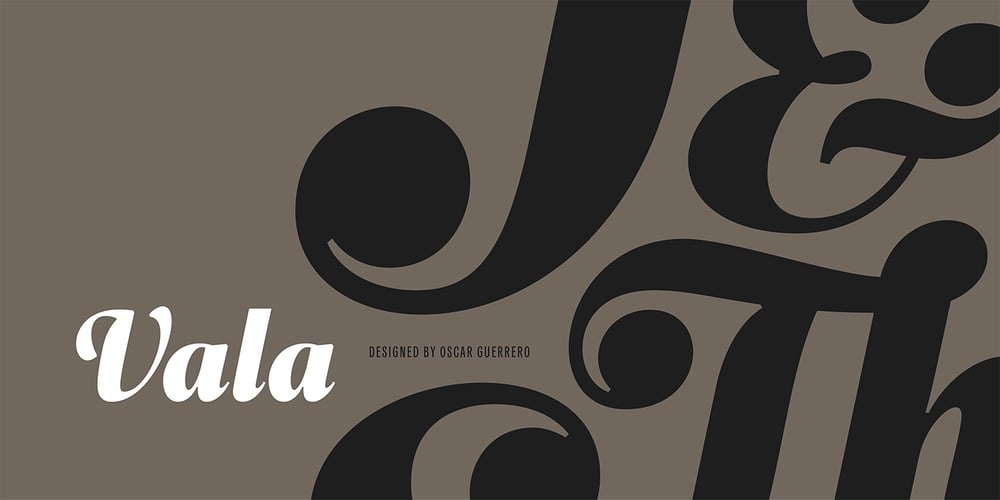
Vala Font Family was designed by Oscar Fernando Guerrero Canizares and published by Monotype. Vala contains 1 styles and family package options. Vala™ dances across printed pages and shines on screen. This is a high-energy design that blends the grace of an English Roundhand script with the gravitas of an extra bold Bodoni. There is even a bit of romance in the design. Vala speaks with a resonant voice – and knows few bounds. The typeface enhances print headlines, subheads, cover art and packaging. The design also brings its distinctive melding of verve and poise to banners, headings, navigational links and branding in web sites, blog posts, games and apps. Oscar Guerrero found inspiration for Vala in shop window lettering near his home in Bogotá, Colombia. “The capital A, R and V caught my attention and I photographed the window for future reference,” he explains. “Later I started to draw more letters inspired by the ones in the window.” Guerrero admits that he has always admired the work of Giambattista Bodoni and allowed his classic Didone designs to infuse Vala. Striking contrast in stroke weights, lively ball-terminals and a large x-height give Vala the grace and force of a Waikiki wave. Not satisfied with just a basic character set, Guerrero also took advantage of OpenType’s capabilities and drew a complete set of swash capitals, a bevy of fancy ligatures, and a suite of lowercase alternative designs. The result is that Vala easily emulates custom lettering in posters, headlines and logotypes. The “romantic” part of Vala? Guerrero dedicated the design to his girlfriend, Valentina, and named it after her.